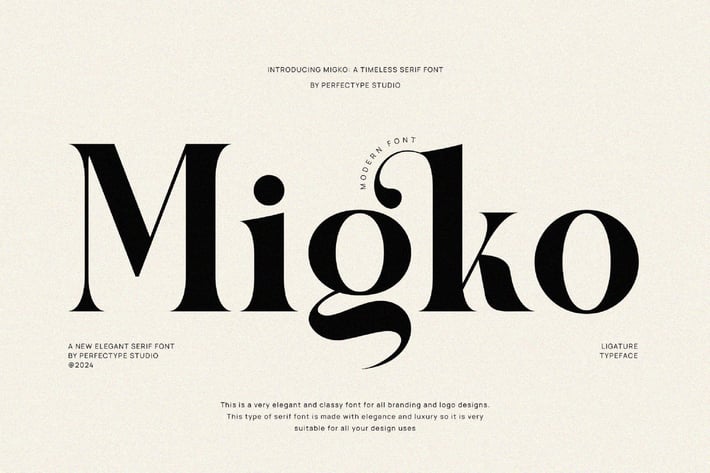
Migko Elegant Serif Font Typeface
Migko is an elegant serif font made to bring a clean, classic style to your designs. With smooth lines and neat serifs, this font works great for many projects. Whether you want to design wedding invitations, luxury brands, or magazines, Migko gives a polished and stylish look that stands out.
This font mixes old-style serif features with a modern touch. So, it is easy to read and can be used for big headlines or small text. This makes Migko useful for books, logos, websites, and posters.
Also, Migko includes all letters in uppercase and lowercase, numbers, and punctuation. Because of this, you can use it in many ways without worry. The letters have balanced shapes, which keeps the text clear no matter the size.
Here are some key features of Migko:
- Classic serif style with modern feel
- Great for luxury brands and editorial work
- Works well for headlines, text, and logos
- Easy to read with balanced letter shapes
- Full set of letters, numbers, and marks
- Smooth lines add to its beauty
- Fits both print and digital projects
Plus, Migko pairs nicely with sans serif fonts. This helps you make clean and professional designs. If you want a font that shows style and grace, Migko is a smart pick.
In short, Migko is a great choice for invitations, branding, and magazines. It brings style and clarity to every project. Add Migko to your font set and improve your designs easily.